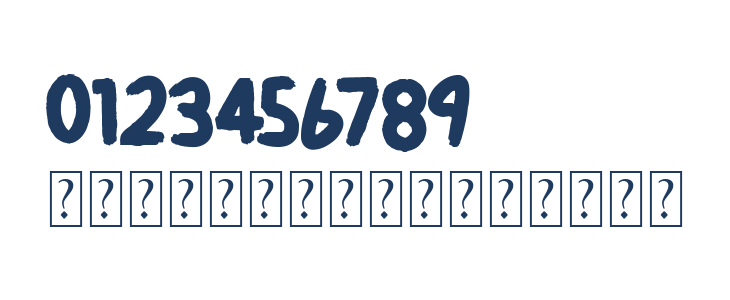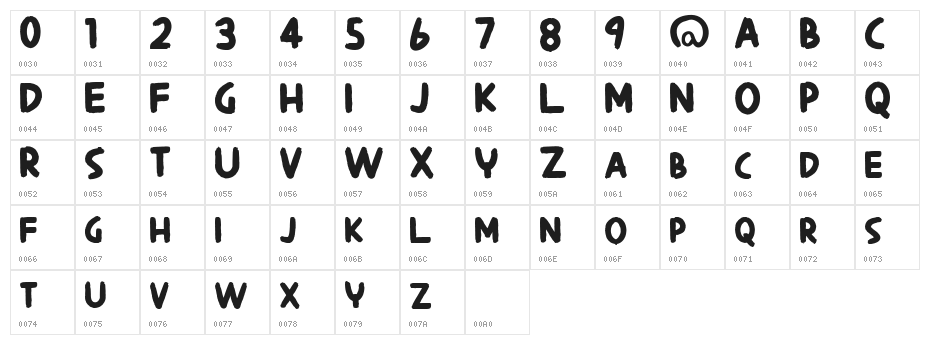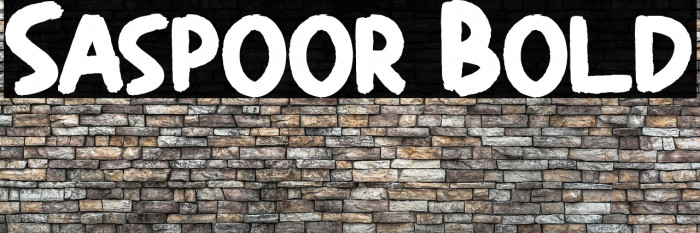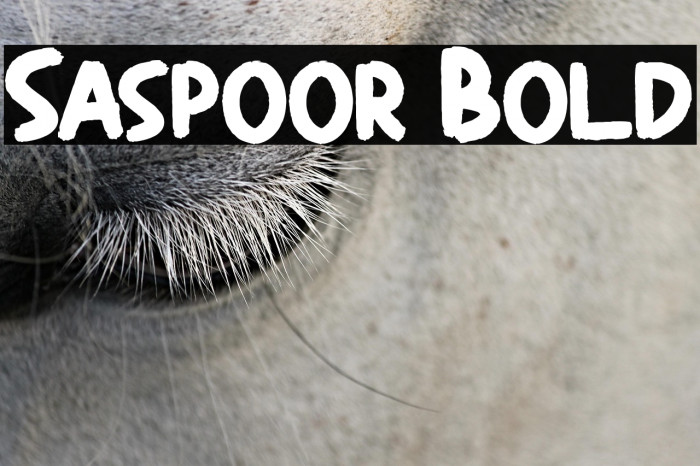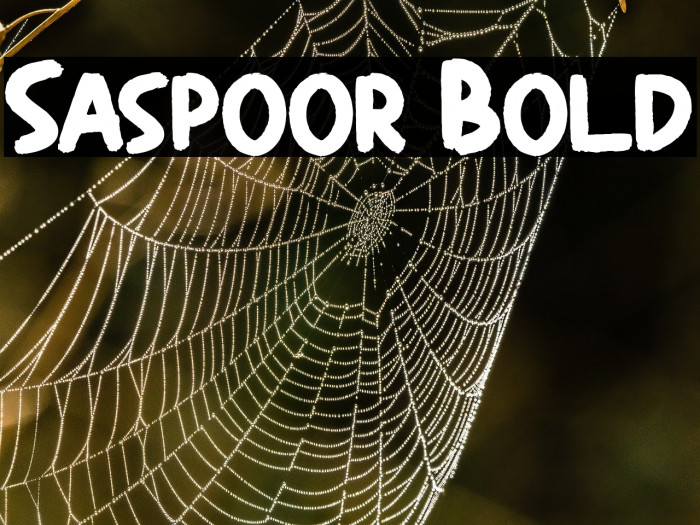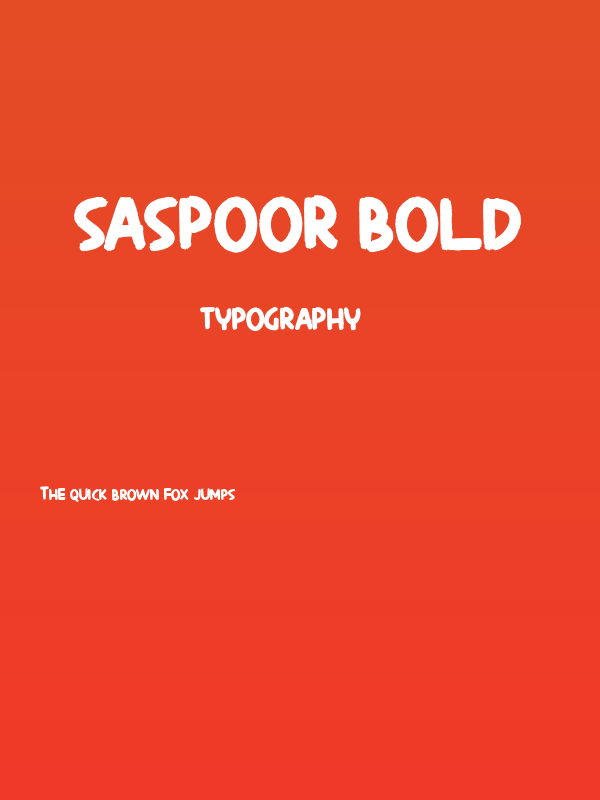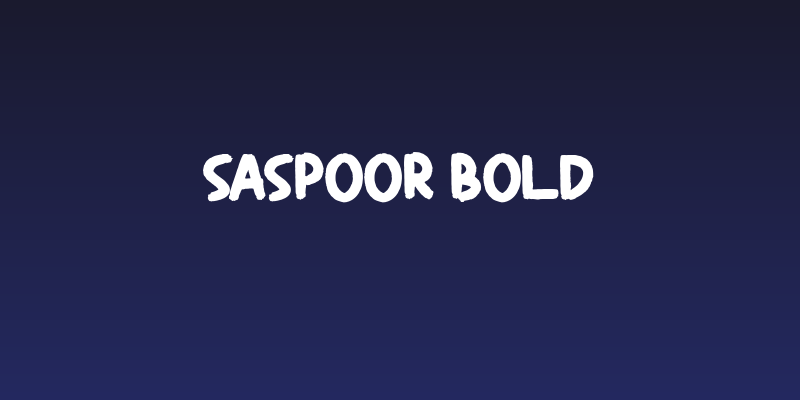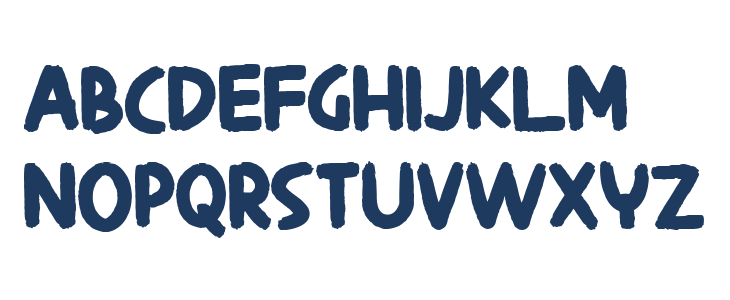
Saspoor Bold Font
Saspoor Bold Description
This font features a bold, hand-drawn style with a playful and energetic appearance. The letters are thick and slightly irregular, giving them a casual and approachable feel. The strokes are consistent in weight, contributing to a cohesive look across all characters. The uppercase and lowercase letters maintain a uniform style, while the numbers and special characters blend seamlessly with the alphabet. This font's boldness makes it stand out, ideal for grabbing attention in various design contexts.
| Proposed Projects | Ideal for children's book covers, playful branding, posters, and social media graphics. |